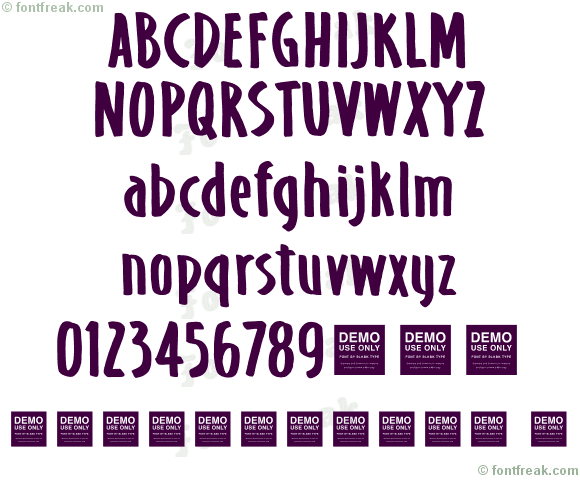
Hippy Dippy
The Hippy Dippy font by BLKBK Fonts is a captivating display typeface that embodies a playful and whimsical spirit. This decorative font features a unique handwritten style, characterized by its irregular stroke weights and soft curves, which give it a friendly and approachable feel. The letterforms are designed with a casual flair, showcasing a lack of strict uniformity that enhances its artistic charm. The spacing between letters is thoughtfully balanced, ensuring readability while maintaining an organic look.
Ideal for a variety of creative projects, the Hippy Dippy font shines in contexts such as festival flyers, bohemian-themed wedding invitations, and vibrant restaurant menus that aim to evoke a relaxed atmosphere. Its quirky personality also makes it perfect for social media graphics, where eye-catching text can grab attention quickly. Graphic designers and content creators will find this font particularly useful for projects aimed at younger audiences or those seeking a retro vibe.
What truly makes the Hippy Dippy font stand out is its ability to convey a sense of fun and freedom, capturing the essence of a carefree lifestyle. By incorporating this font into your designs, you not only enhance visual appeal but also evoke feelings of nostalgia and joy, making it an excellent choice for anyone looking to add a touch of whimsy to their work.